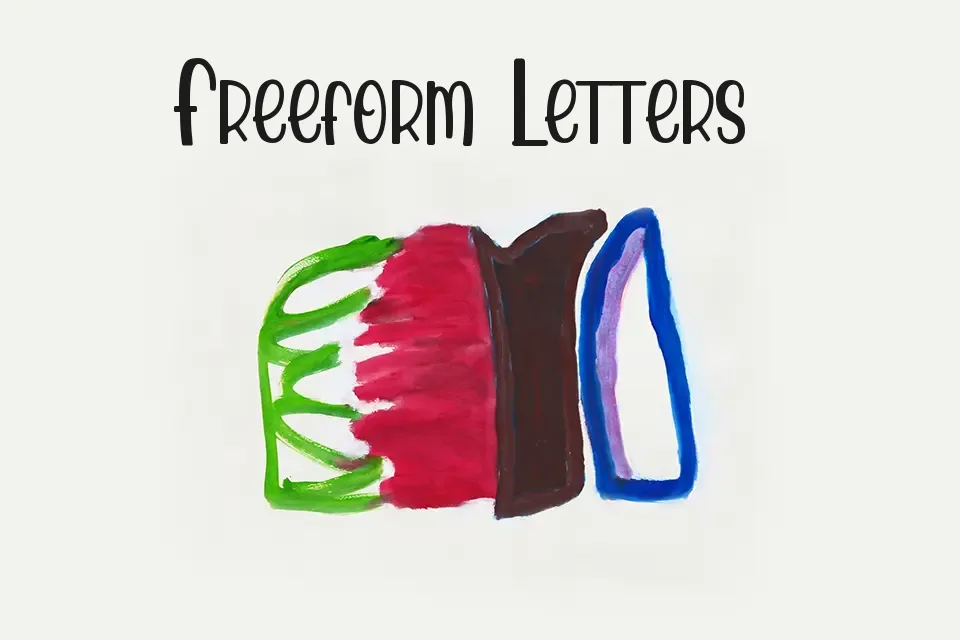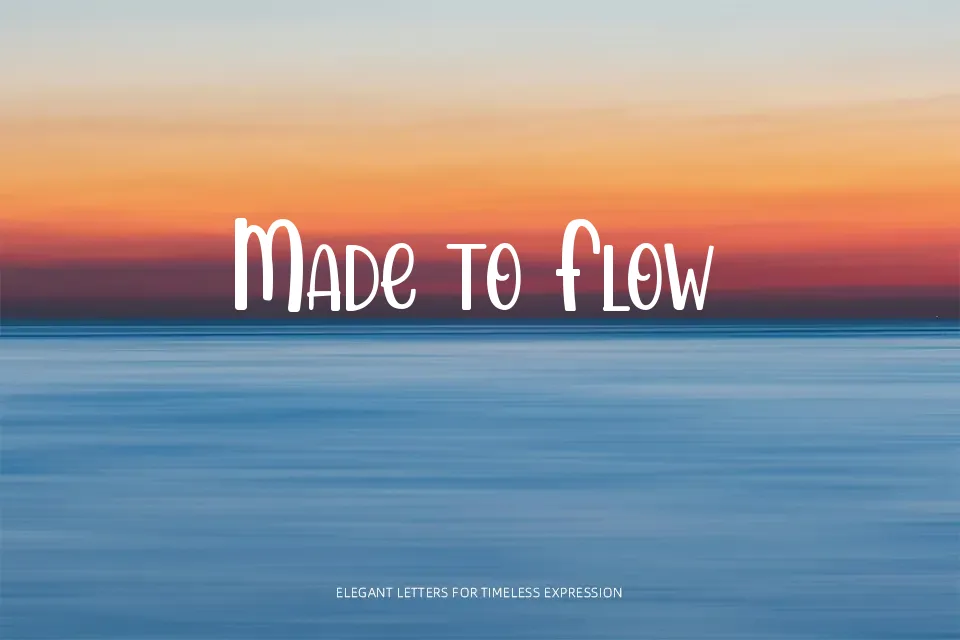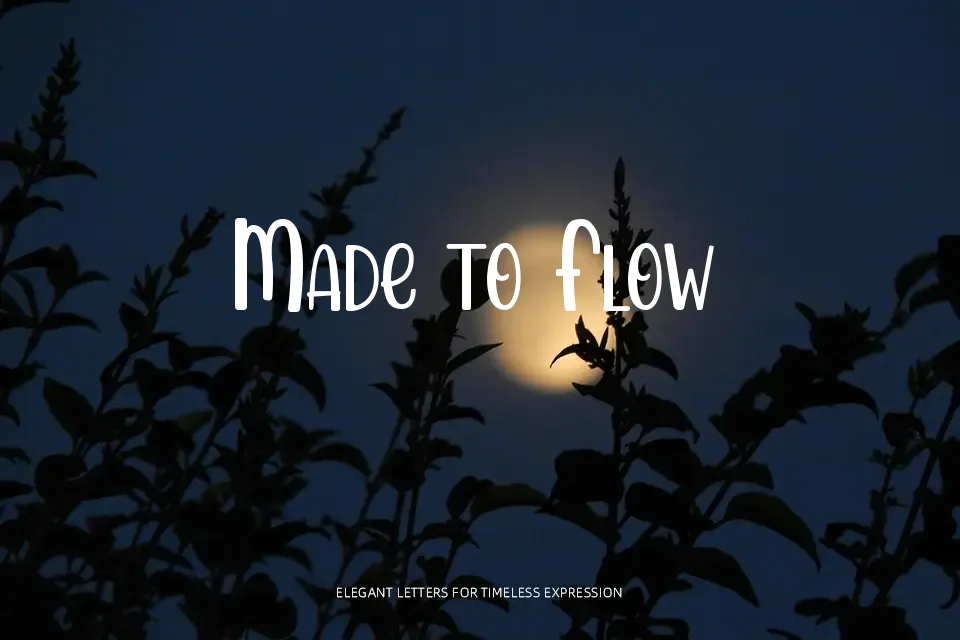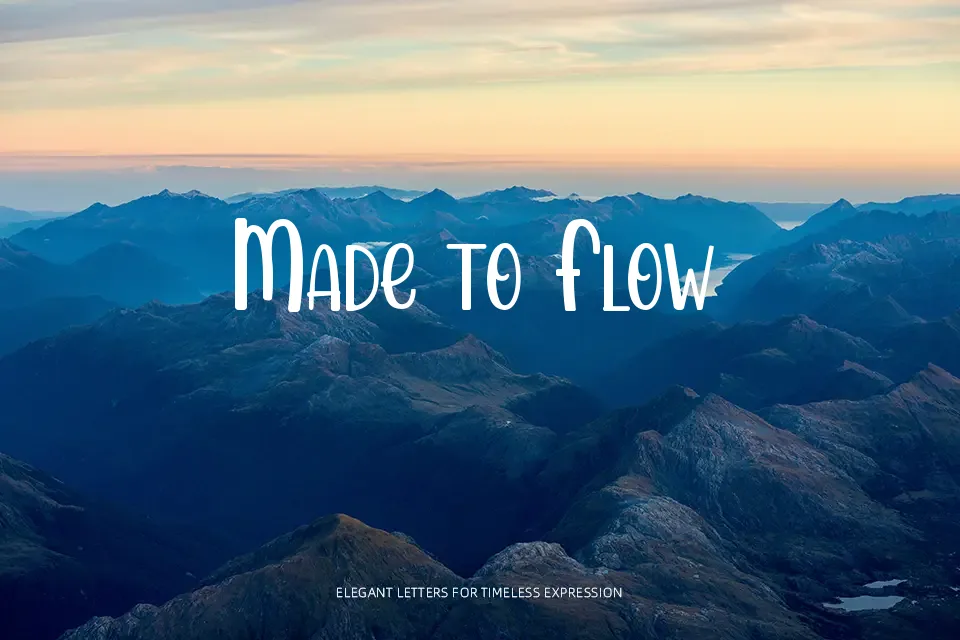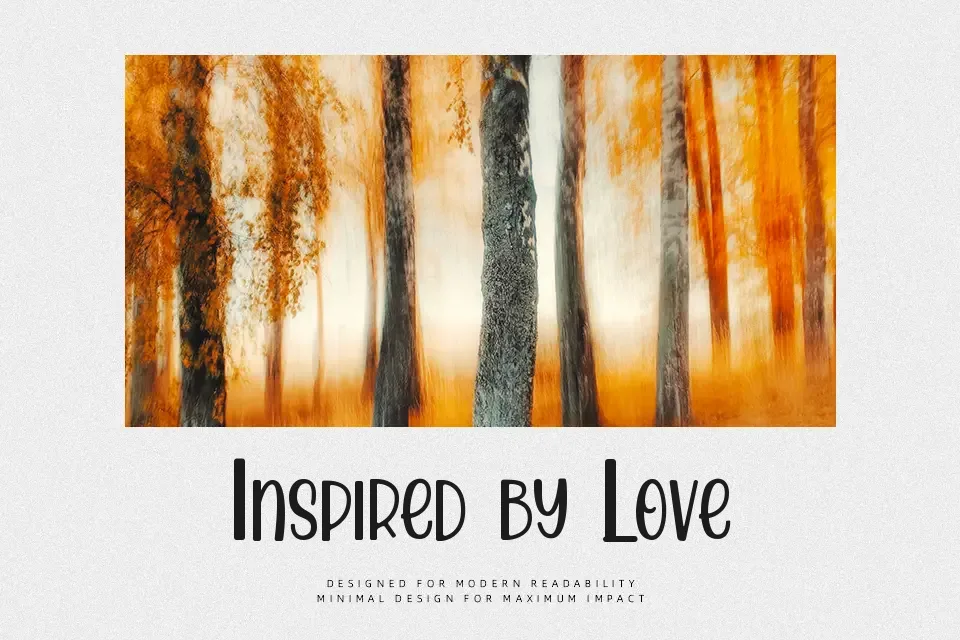
Almond Caramel Font
The strokes in Almond Caramel move with a relaxed, natural rhythm — curves stay smooth, letter connections feel unhurried, and the overall weight stays light enough to read at headline sizes without crowding. It carries a hand-lettered warmth that works well on artisan product packaging, café menus, or personal brand identity projects where a human touch is part of the message. The included ligatures and swashes give designers room to add flair without reaching for extra tools. That said, the script style breaks down fast at small sizes, and its decorative character makes it a poor fit for anything requiring neutral or authoritative tone. If you need multi-weight versatility or body text legibility, this isn’t the font for that job.
Best For:- Artisan café or bakery menu headers
– Handcrafted product packaging labels
– Wedding or event invitation titles
– Lifestyle brand social media graphics
Not Ideal For:- Body text or long-form reading
– Corporate reports or formal documents
– Small-size applications where legibility is critical
– Projects requiring a neutral or gender-neutral tone
Perfect for branding, invitation, and packaging, with a elegant and display style.